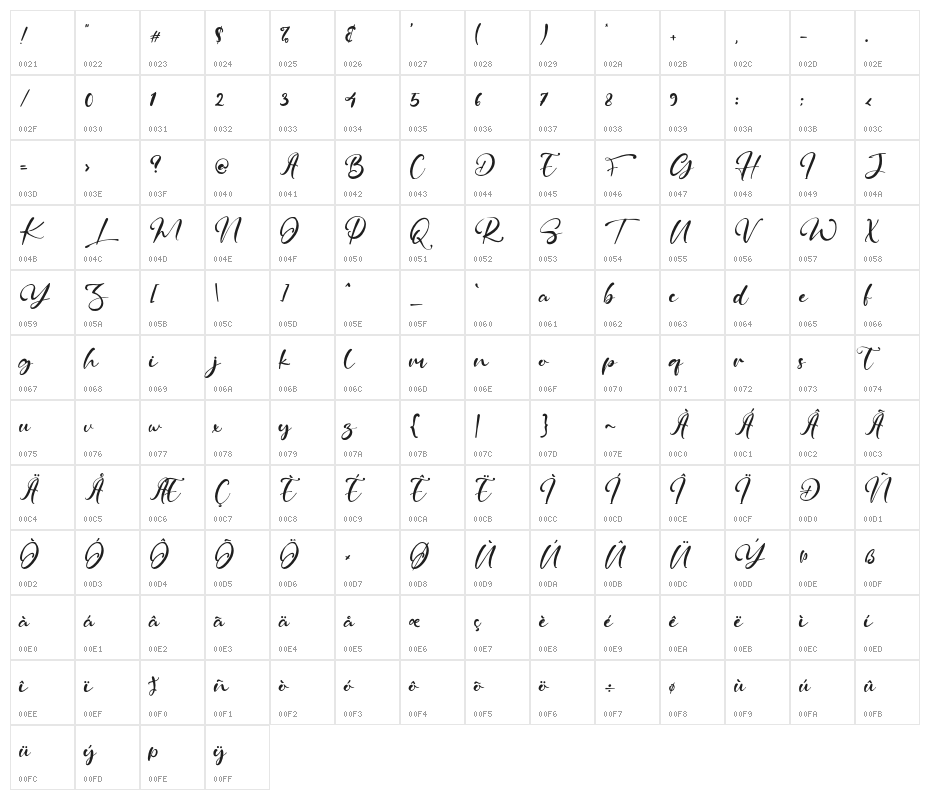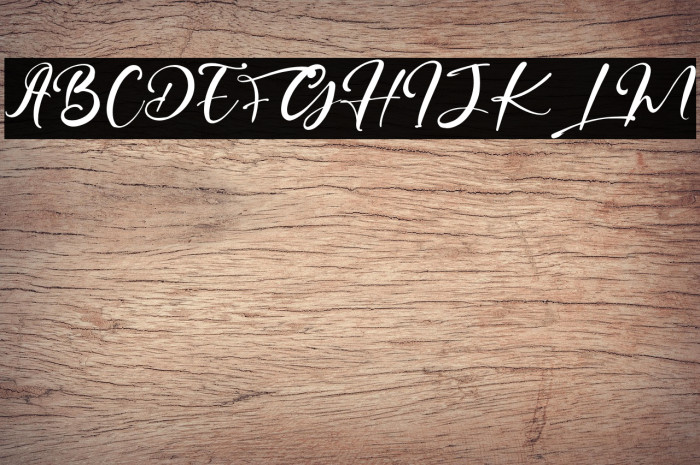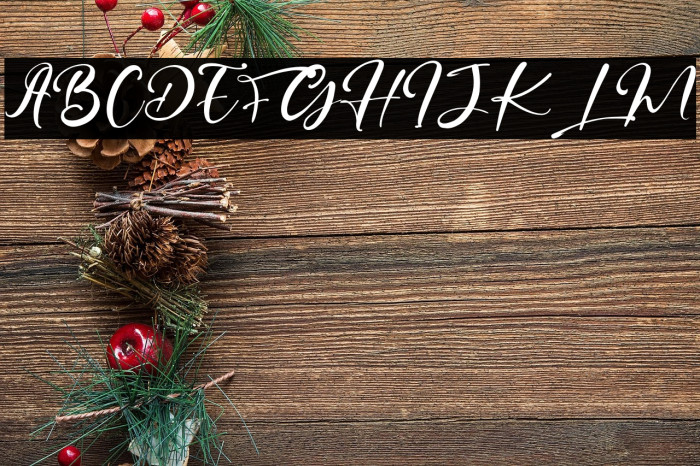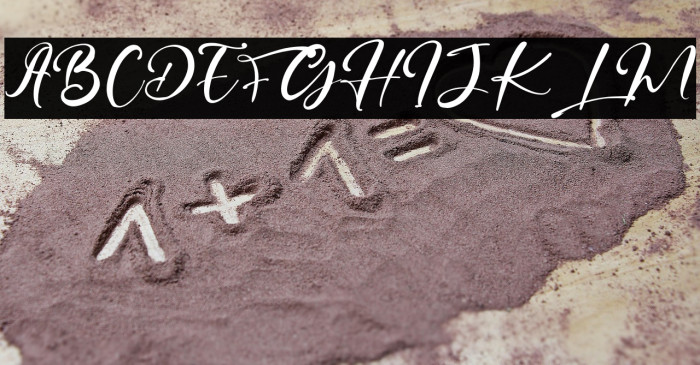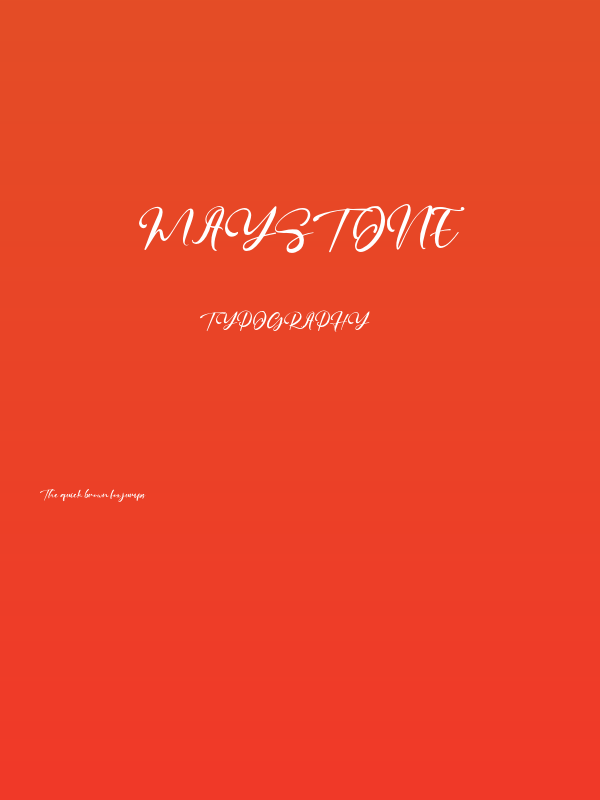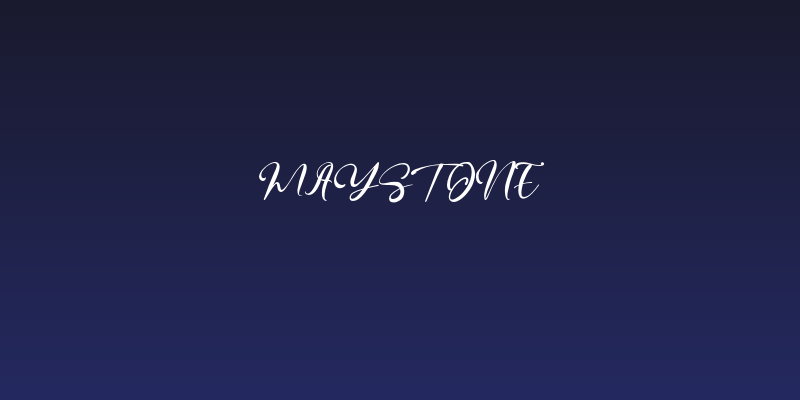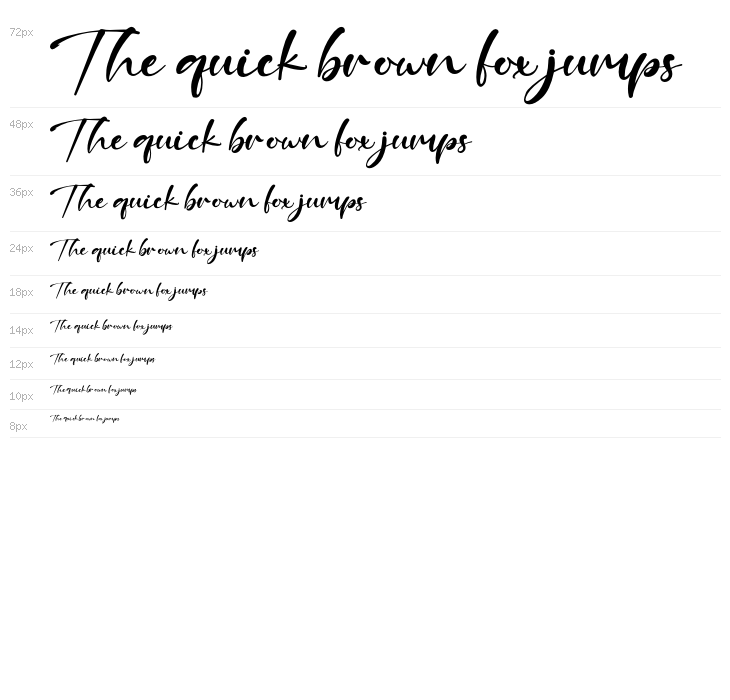
Maystone Font
Maystone Description
This elegant script font features flowing, cursive letterforms with a sophisticated and artistic flair. The uppercase letters are characterized by their sweeping curves and intricate loops, while the lowercase letters maintain a consistent fluidity, enhancing the font's graceful appearance. The numerals are stylishly integrated with the overall design, maintaining the font's cohesive look. Special characters are thoughtfully crafted, adding to the font's versatility. This font exudes a sense of elegance and creativity, making it ideal for projects that require a touch of sophistication.
| Proposed Projects | Ideal for wedding invitations, elegant branding, greeting cards, and artistic projects. |